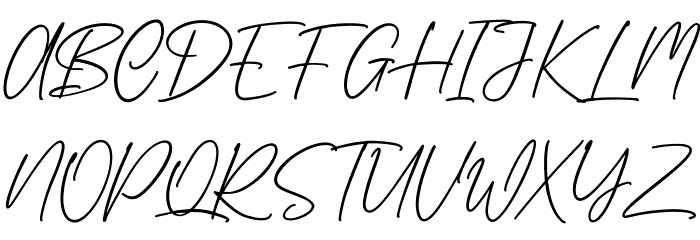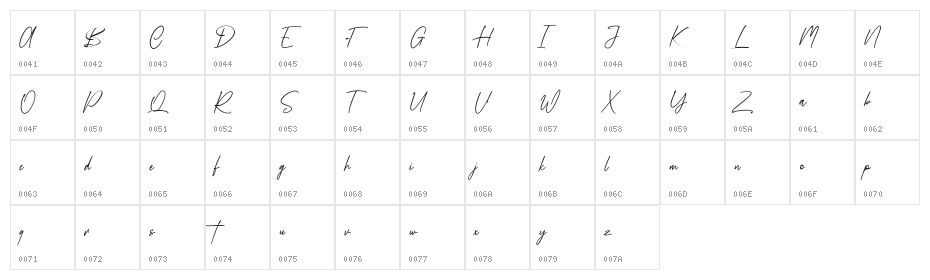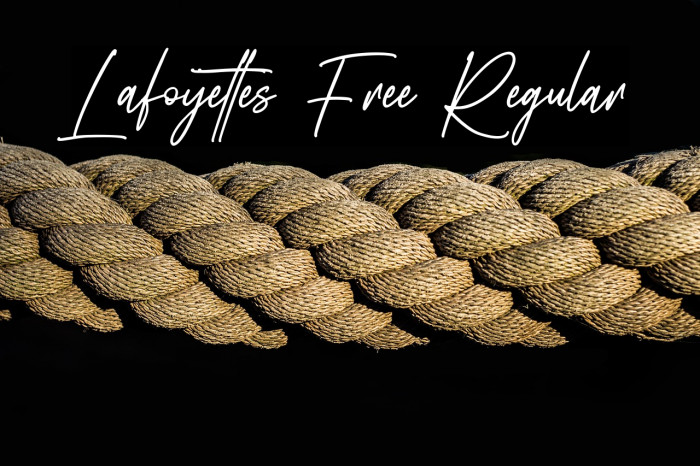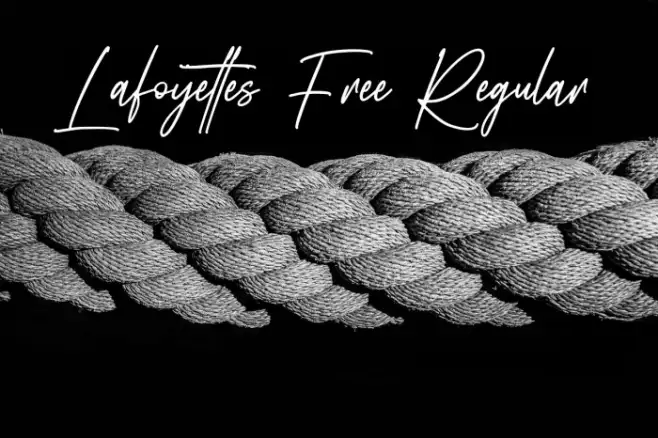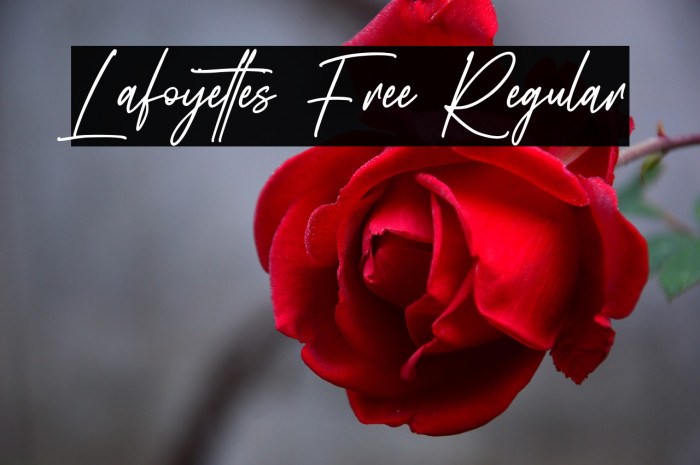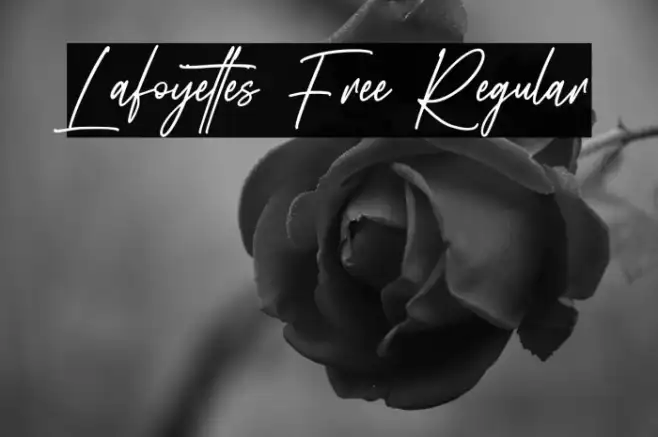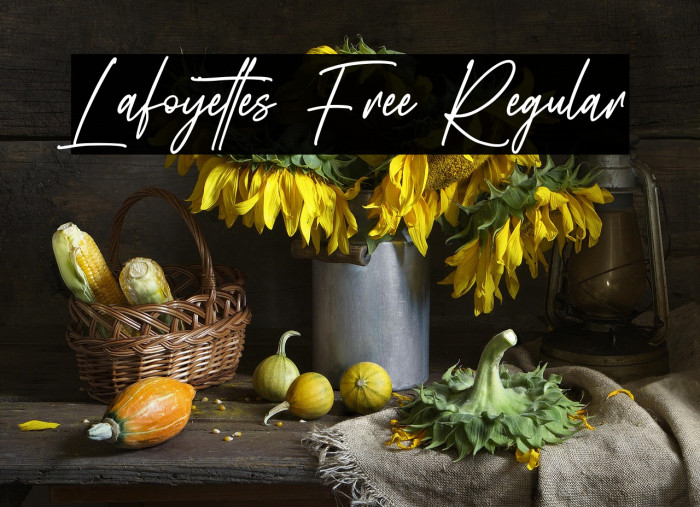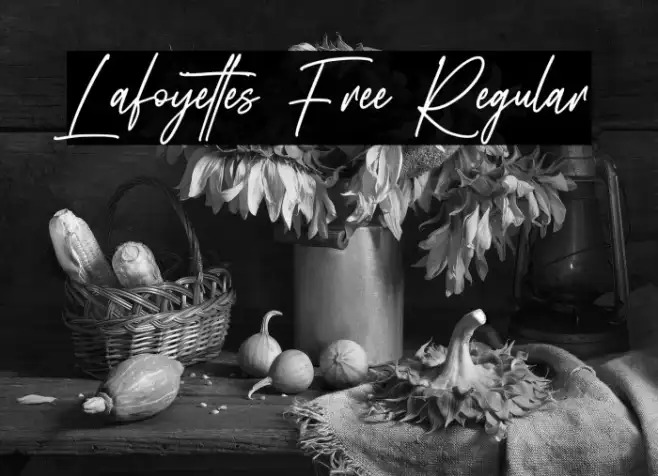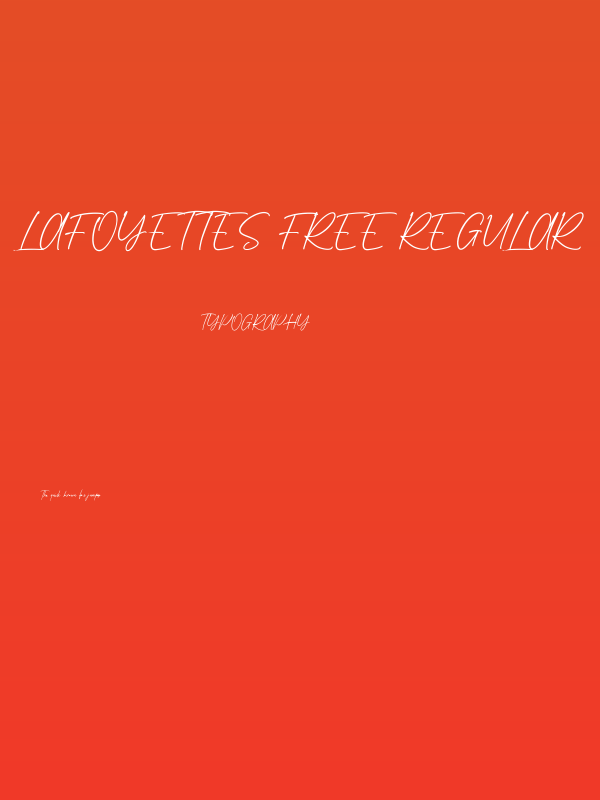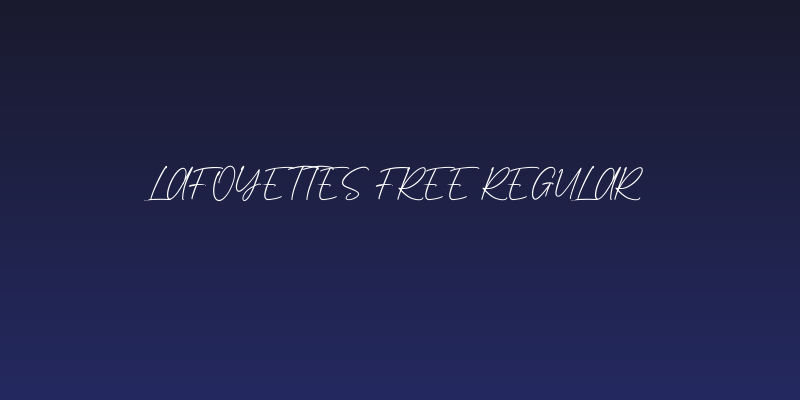
Lafoyettes Free Regular Font
Lafoyettes Free Regular Description
This font exhibits a fluid and elegant script style, characterized by its smooth, flowing lines and cursive nature. The uppercase letters are tall and slightly slanted, giving a sense of movement and grace. The lowercase letters maintain a consistent style, with loops and curves that enhance the handwritten appearance. The font's thin strokes and high contrast between thick and thin lines add to its sophisticated and stylish look. It is well-suited for projects that require a personal touch, such as invitations, greeting cards, or branding materials that aim to convey elegance and creativity.
Overall StyleElegant, Handwritten
Use CaseLogos, Invitations, Greeting Cards
Proposed ProjectsIdeal for wedding invitations, greeting cards, personal branding, and creative projects requiring a touch of elegance.